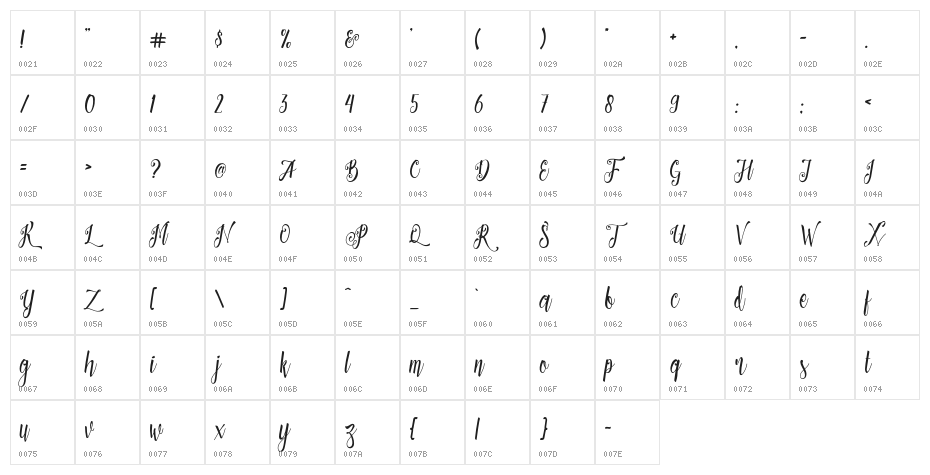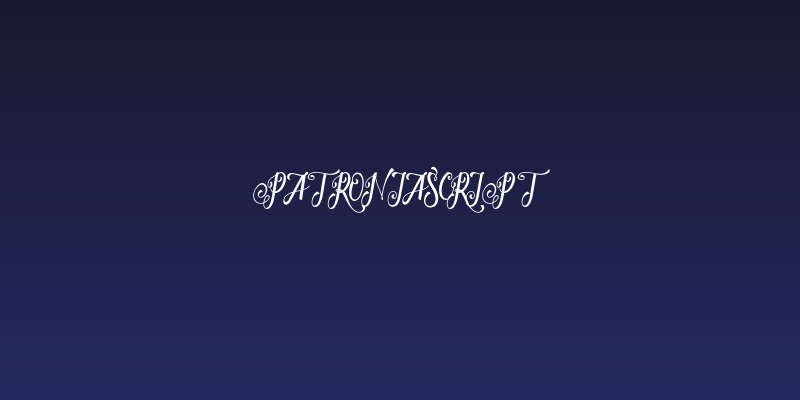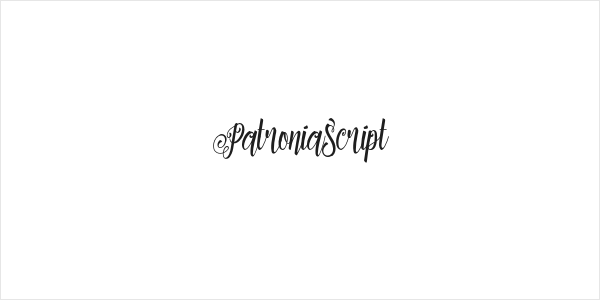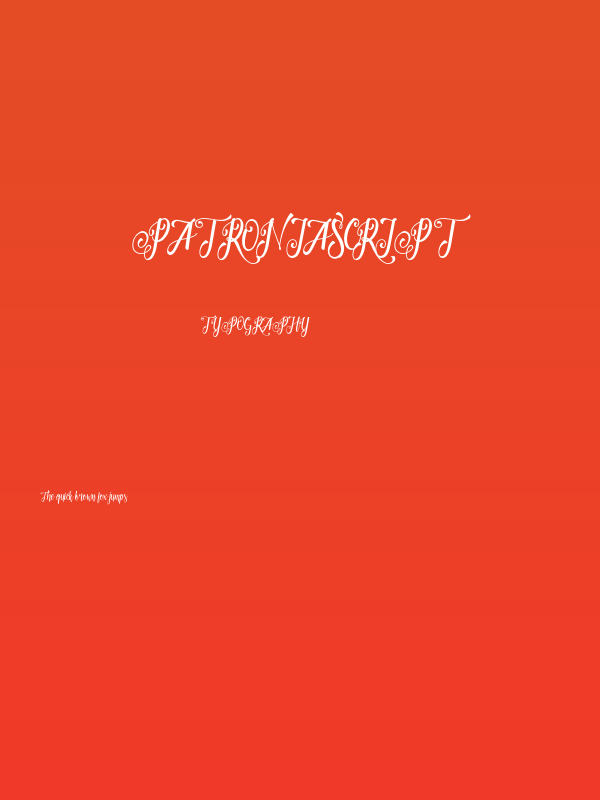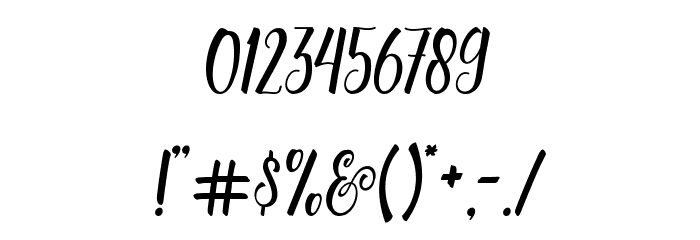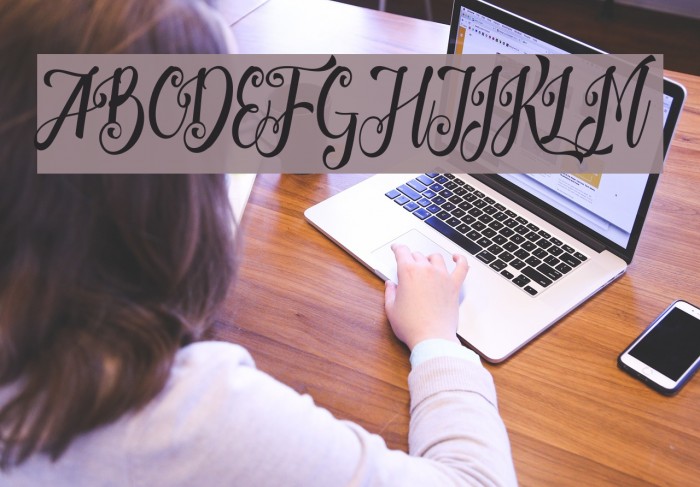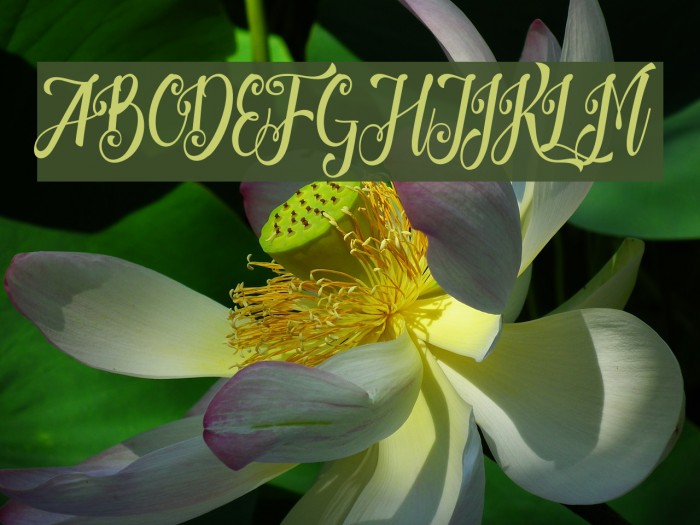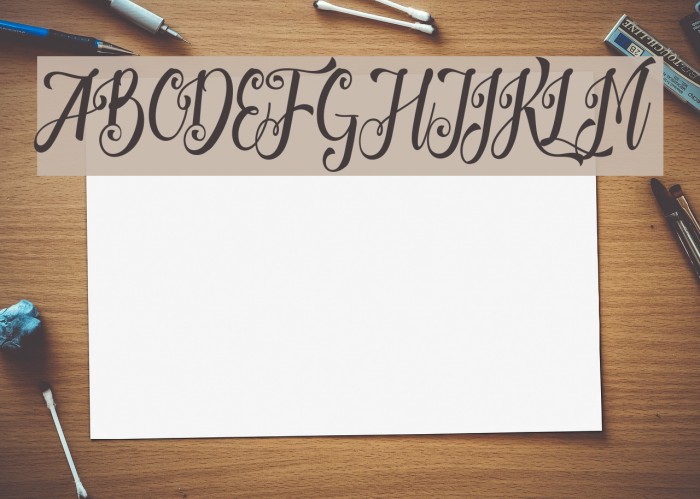
PatroniaScript Font
PatroniaScript Description
This font exudes elegance and sophistication with its flowing, cursive script style. The characters are intricately designed with graceful loops and swirls, giving it a hand-drawn appearance. The uppercase letters are particularly ornate, featuring elaborate flourishes that add a touch of grandeur. The lowercase letters maintain a consistent style, with smooth connections between each character, enhancing readability while preserving the decorative nature. The numerals and special characters are crafted to match the overall aesthetic, ensuring a cohesive look across all text. This font is perfect for projects that require a touch of elegance and personalization.